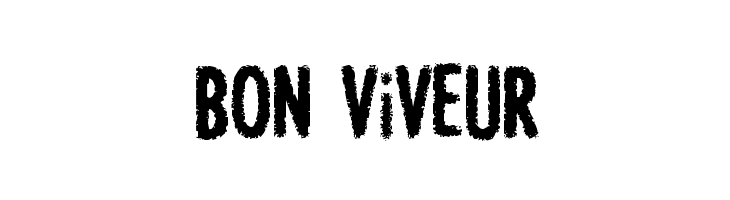
A bold, textured font with a brush-like appearance, perfect for impactful designs.
A bold, decorative font with abstract distortions and artistic cutouts.
A bold, distressed grunge font with a rugged, textured appearance.
A bold, distressed font with jagged edges and a rugged texture.
A rugged, distressed font with a charred, gritty appearance.
A bold, textured font with a vintage, distressed appearance.